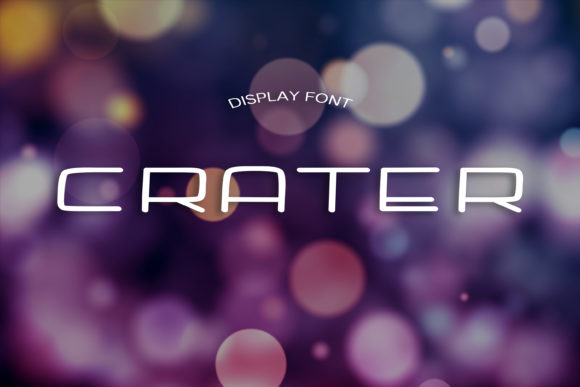
Crater Font
Journey to the cosmos with Crater Font—a display font that defies the boundaries of ordinary typography. This interstellar typeface will elevate your designs to new heights, leaving your audience awestruck and yearning for more. Step into a realm where imagination intertwines with reality, and your words transform into celestial wonders.
Crater Font possesses an otherworldly charm, perfectly capturing the essence of cosmic exploration. Its enigmatic curves and sharp angles evoke a sense of mystery and wonder, inviting your readers to embark on an intergalactic voyage. Unleash your creativity, let your thoughts soar beyond the stratosphere, and witness your designs evolve into masterpieces that transcend time and space.
With Crater Font, you hold the power to create captivating headlines that dance across the screen like shooting stars, captivating your audience with their radiant glow. Compose body text that resembles stardust, shimmering with elegance and poise. Craft logos that resemble distant galaxies, swirling with vibrant colors and enigmatic allure.
Say goodbye to mundane fonts and embrace the extraordinary with Crater Font. Its futuristic design breaks free from convention, ensuring your projects stand out from the crowd. Ignite your imagination, let your creativity run wild, and embark on a typographic odyssey that will redefine the boundaries of design.
Harness the power of Crater Font to elevate your branding, marketing materials, and digital content to new stratospheric heights. Allow your words to take flight, captivating your audience with their newfound celestial beauty. Experience the awe-inspiring fusion of art and technology as you witness your designs metamorphose into cosmic masterpieces.
Crater Font—the key to unlocking a universe of infinite creative possibilities. Embrace the future of typography today and let your designs soar among the stars.